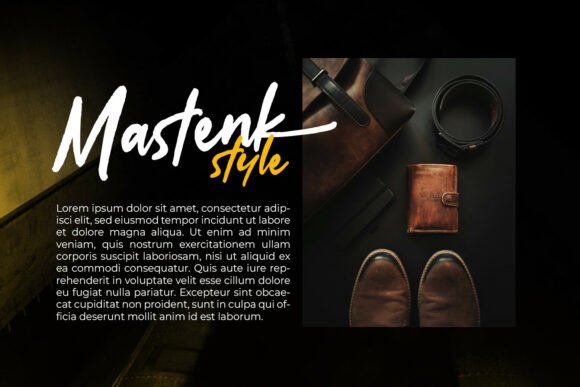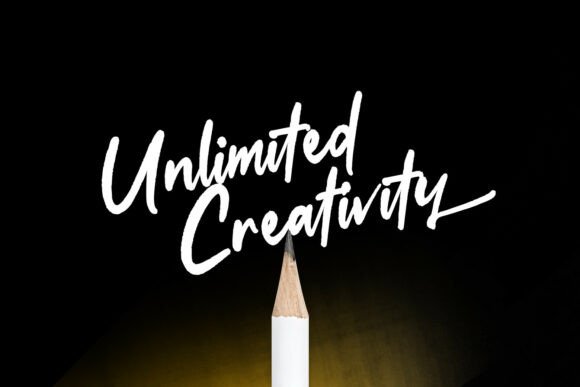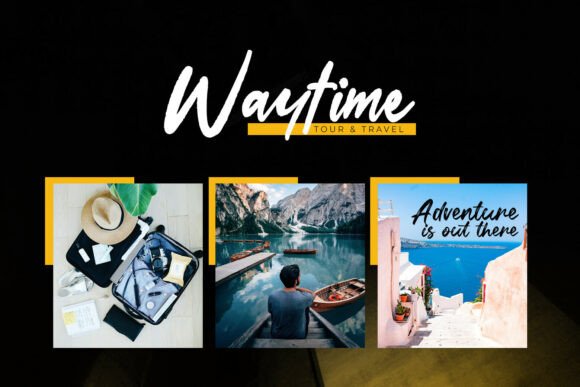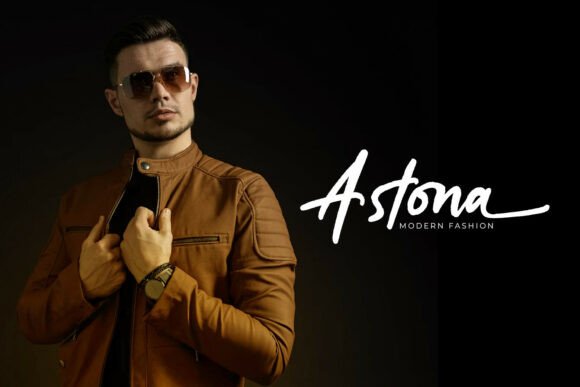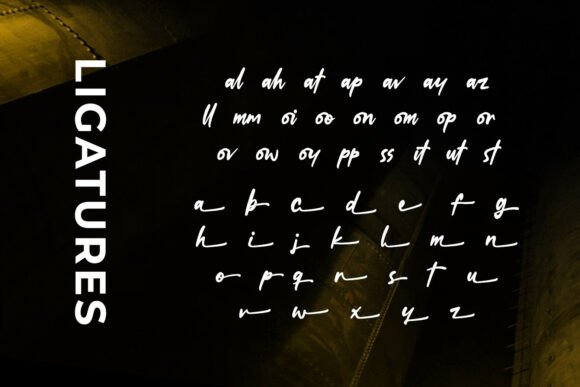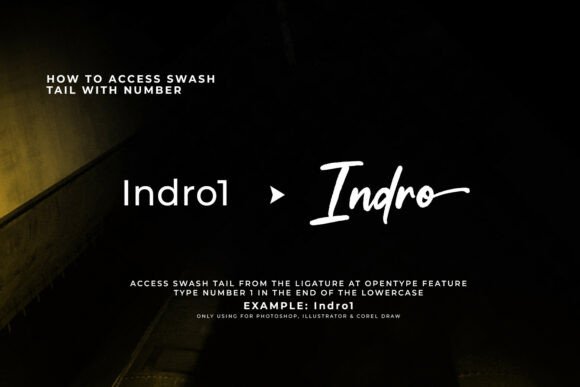
Bastore Font: Elevate Your Designs with Authentic Handwritten Charm
In the world of typography, few fonts manage to capture the essence of real hand-lettering as beautifully as Bastore Font. This script handwriting font is designed to bring a natural, expressive touch to your designs, infusing them with warmth, style, and a premium feel. Whether you’re a designer, crafter, or simply someone who appreciates the art of beautiful lettering, Bastore is an exceptional choice for a wide range of creative projects.
The Unique Charm of Bastore Font
Bastore is more than just a font; it’s an experience. Every stroke is crafted to feel alive, with a smooth, expressive quality that exudes personality. The font’s natural brush effect gives it an authentic handwritten charm, making it perfect for designs that require a personal touch. From logos and branding to product packaging, quotes, social media posts, and wedding designs, Bastore adds a level of sophistication and elegance that instantly elevates your work.
Key Features of Bastore Font
• Natural Brush Effect: Bastore’s brush texture mimics the organic feel of hand-lettering, creating a sense of movement and emotion in your text.
• Flowing Connections: The font’s script style features flowing connections that give your designs a dynamic, fluid look.
• Expressive Strokes: Every stroke in Bastore is designed to be expressive and full of personality, making your text feel human and memorable.
• Versatility: Bastore is suitable for a wide range of applications, from logos and branding to social media posts and creative projects.
Applications of Bastore Font
Bastore’s versatility makes it an excellent choice for various design projects. Here are some of the ways you can use Bastore to enhance your designs:
• Logos and Branding: Create a unique and memorable brand identity with Bastore’s distinctive, handwritten style.
• Product Packaging: Add a personal touch to your product packaging with Bastore’s elegant, cursive script.
• Quotes and Social Media Posts: Make your quotes and social media posts stand out with Bastore’s dynamic, expressive lettering.
• Wedding Designs: Use Bastore to create beautiful, custom wedding stationery, including invitations, place cards, and more.
• Creative Projects: Bastore is perfect for a wide range of creative projects, from art journals to craft tutorials.
Why Choose Bastore Font?
In a world where digital designs often feel cold and impersonal, Bastore Font offers a refreshing alternative. Here are some reasons why Bastore stands out:
• Authentic Handwritten Charm: Bastore’s natural brush effect and expressive strokes give your designs a genuine, handwritten feel.
• Ease of Use: Bastore is easy to use and pairs well with a variety of other fonts, making it simple to incorporate into your designs.
• High-Quality Design: Bastore is designed to deliver exceptional results, with a high level of detail and craftsmanship.
Bastore Font is a beautiful, script handwriting font that brings a natural, expressive touch to your designs. With its authentic handwritten charm, flowing connections, and dynamic brush texture, Bastore is perfect for designers, crafters, and anyone looking to add a personal touch to their creative projects. Whether you’re working on logos, branding, product packaging, or simply want to create something special, Bastore is an exceptional choice. Elevate your designs with the elegance and sophistication of Bastore Font.